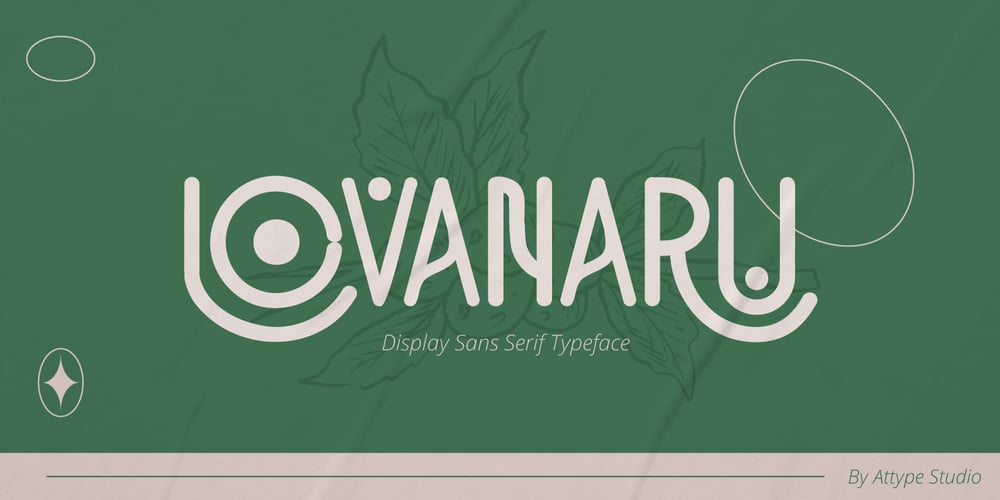
Lovanaru
Lovanaru font
Lovanaru Font Family was designed by Fadli Ramadhan Iskandar and published by Attype Studio. Lovanaru contains 1 styles and family package options. Lovanaru is a Sans Serif font with all caps, that provides a modern and minimalistic design. It comes with smart OpenType features, ligatures, clean letterforms and monoline strokes. Lovanaru is an excellent choice if you are looking for an easy to read and enjoyable font.Lovanaru is perfect for minimalistic themed product, branding, logo, invitation, stationery, product packaging, merchandise, monogram, blog design, game titles, cute style design, Book/Cover Title and more.Features :- Lovanaru Font- Ligatures- Multilingual, US Roman, Latin 1 Support Thank you for purchasing premium fonts from Attype Studio. Follow and explore our work on Pinterest & Instagram. If you have any question, don’t hesitate to contact us.We hope you enjoy with our font!Attype Studio